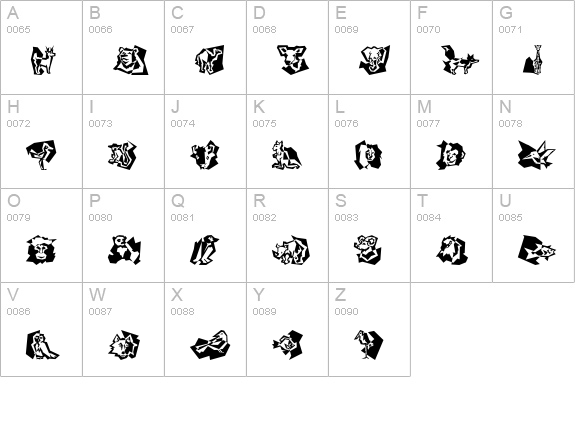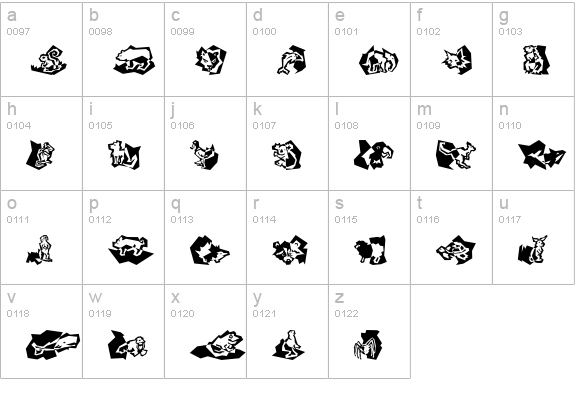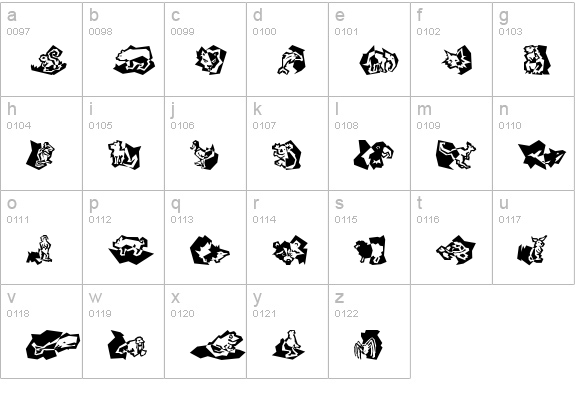
NatureMixICG Font Details
NatureMixICG font is a versatile and charming typeface that embodies the beauty and simplicity of nature. Its elegant yet playful design makes it perfect for a wide range of creative projects, from branding to packaging to social media graphics. The font features a unique blend of organic shapes and modern styling, giving it a fresh and distinctive look. NatureMixICG font is available for free download at FontsMarket.com, making it accessible to anyone looking to add a touch of natural beauty to their designs. Whether you're a seasoned designer or just starting out, this font is sure to inspire and elevate your work with its natural charm and versatility. Add a touch of nature to your next project with NatureMixICG font and see the difference it can make!